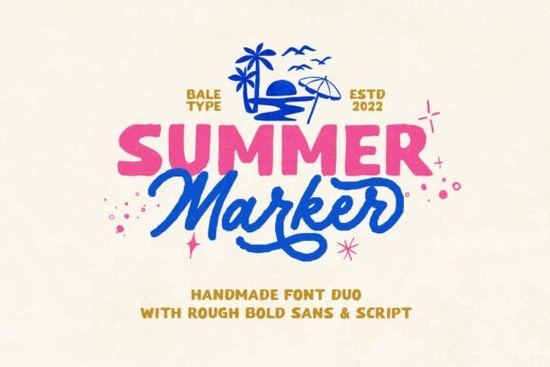
If you've been searching for a handmade font duo that feels both relaxed and bold, the Summer Marker font might be exactly what your next project needs. It comes with two styles a bold sans and a monoline script both designed to give your work that hand-crafted, slightly rough look that's popular across branding, stickers, and print-on-demand designs right now.
I've been working with marker-style fonts for a while, and what stands out about this one is how naturally the two styles complement each other. Let me walk you through what makes it useful and who it's best suited for.
What Comes With the Summer Marker Font Duo?
This is a handmade font duo, meaning you get two complementary typefaces in one download:
- Bold sans a chunky, hand-drawn lettering style with slightly rough edges
- Monoline script a flowing cursive with consistent stroke width and a casual feel
Both fonts have an organic, imperfect texture that makes them look like they were drawn by hand with actual markers. That kind of authenticity is hard to find with clean digital fonts.
The duo also supports multi-language characters, so if you're creating designs for international audiences, you won't run into missing glyphs for most European languages.
What Can You Use This Font For?
This style works across a surprisingly wide range of projects. Here are some of the most common uses I've seen (and tried myself):
- Branding and logos especially for casual, lifestyle, or outdoor brands
- Quote designs the script style is great for inspirational or funny quotes
- Stickers and labels handmade fonts look natural on die-cut sticker sheets
- T-shirt typography works well for print-on-demand sellers who want a retro or hand-lettered vibe
- Social media graphics Instagram posts, story highlights, and Pinterest pins
- Greeting cards and invitations birthday, holiday, or seasonal cards with a personal touch
- Packaging design food products, candles, and artisan goods
Basically, any project where you want the design to feel personal and approachable rather than corporate and sterile is a good fit.
How Does It Compare to Other Handmade Fonts?
There are a lot of marker-style fonts out there, so how does this one stack up? In my experience, the real value here is in the duo pairing. Getting two fonts that are already designed to work together saves a lot of guesswork when building layouts.
For comparison, if you prefer a cleaner look, the rounded sans-serif option from Kohilo offers a more refined style that still keeps things friendly. If you want something with more of a natural, earthy feel, the earthy typeface from Cultivo takes a different approach to that organic aesthetic.
Summer Marker sits somewhere in between it's bold enough to grab attention but relaxed enough to feel approachable. The rough edges give it character without making it hard to read.
Is It Actually Easy to Work With?
A few things worth noting:
- The bold sans works best at larger sizes headlines, logos, and display text. At very small sizes, the rough texture can get a bit muddy.
- The script style is more versatile at different sizes but pairs best with the sans for contrast.
- You may want to adjust letter spacing slightly depending on your layout, since hand-drawn fonts don't always have perfectly consistent kerning.
Who Is This Font Best For?
I'd recommend the Summer Marker font duo for:
- Print-on-demand sellers who need quick, eye-catching typography for t-shirts, mugs, and tote bags
- Small business owners creating their own branding materials on a budget
- Crafters using Cricut or Silhouette machines for stickers, decals, and signs
- Social media managers looking for fonts that stand out in a feed
- Freelance designers who want a solid retro marker font in their toolkit
It's not the right choice if you need something ultra-clean and corporate. But for anything with a handmade, casual, or vintage feel, it does the job well.
Quick Checklist Before You Download
- ✅ Check that the font's rough, hand-drawn style matches your project's tone
- ✅ Confirm multi-language support covers the characters you need
- ✅ Test the bold sans at your intended size it works best for display use
- ✅ Pair the script and sans together for the full effect
Tip: Try combining the bold sans for your main headline with the monoline script as an accent or subtitle. That's where this duo really shines the contrast between the two styles gives layouts a natural, handcrafted balance that a single font alone can't achieve.